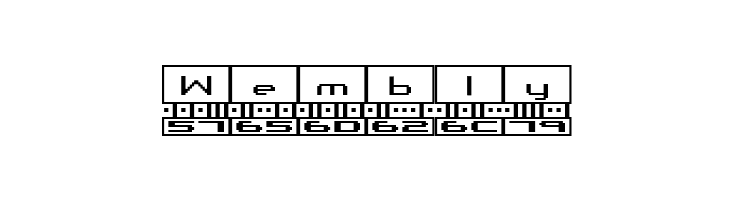
OldEgyptGlyphs Font
A digital-inspired font with a binary code aesthetic, ideal for tech-themed designs.
A digital, binary-inspired font with a geometric, pixelated style.